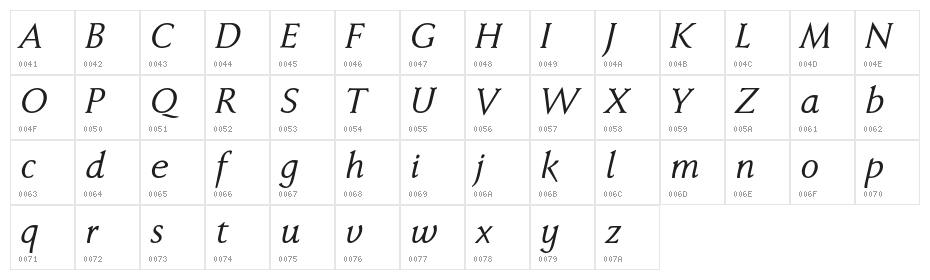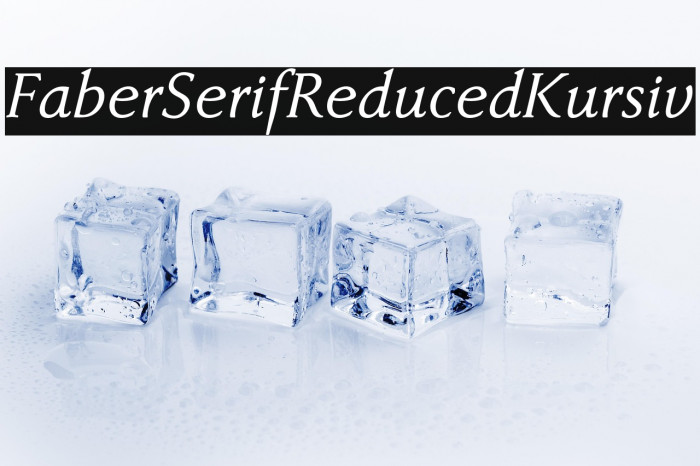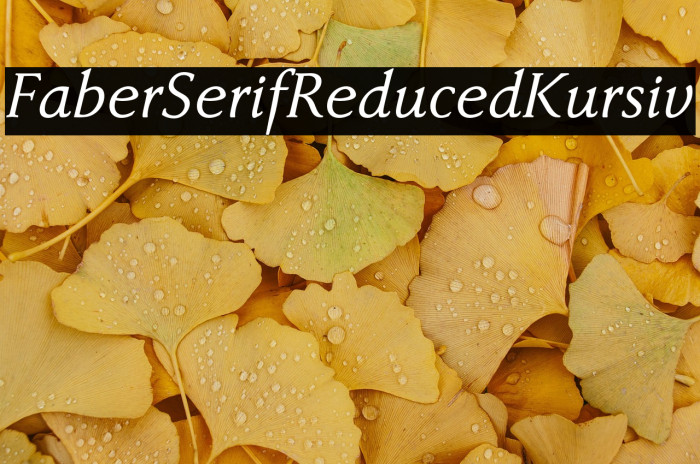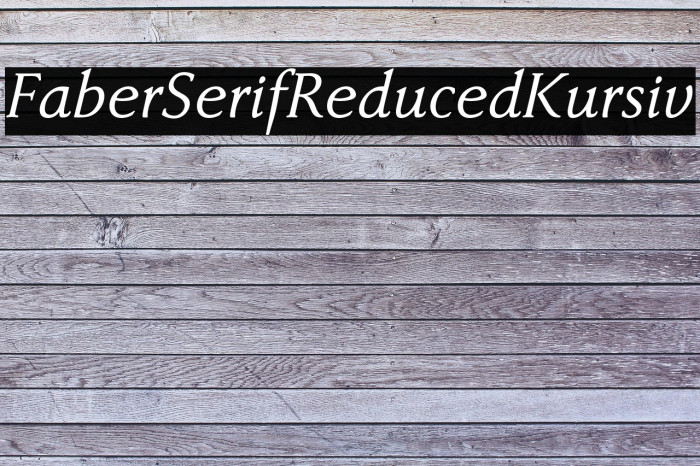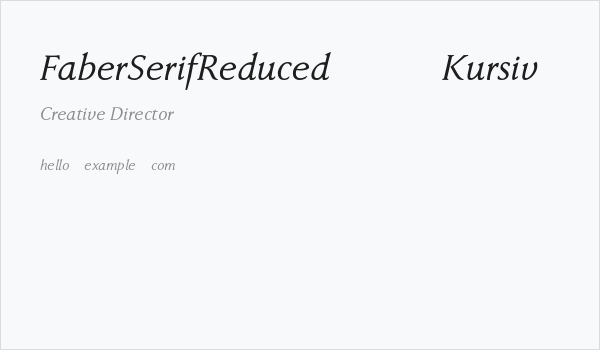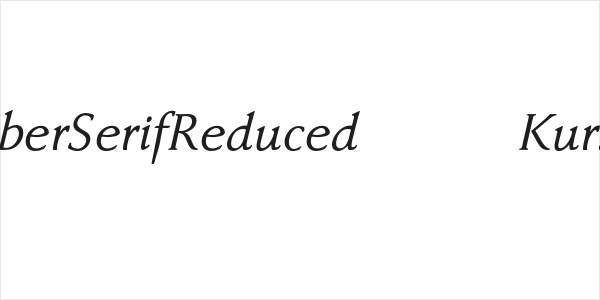
FaberSerifReduced-56Kursiv Font
FaberSerifReduced-56Kursiv Description
This elegant serif font features a classic italic style with smooth, flowing lines and a refined appearance. The characters exhibit a slight slant, enhancing the traditional serif elements with a touch of sophistication. The uppercase letters are well-proportioned, while the lowercase letters maintain a consistent style that complements the overall design. The font's structure is both graceful and readable, making it suitable for a variety of applications. Its timeless appeal is enhanced by the subtle contrast in stroke thickness, adding depth and interest to the text.
| Proposed Projects | Ideal for use in formal invitations, editorial design, book covers, and branding projects that require a touch of elegance. |